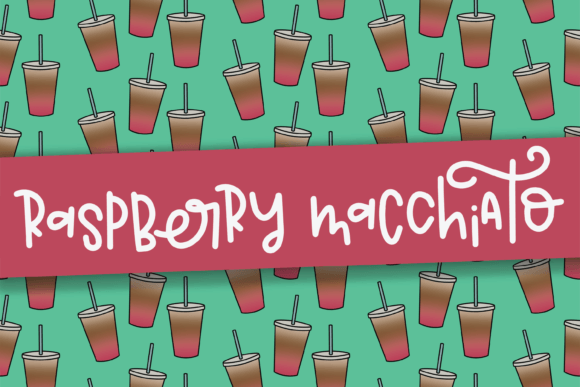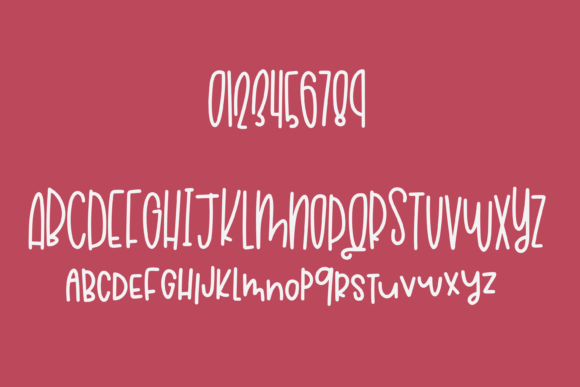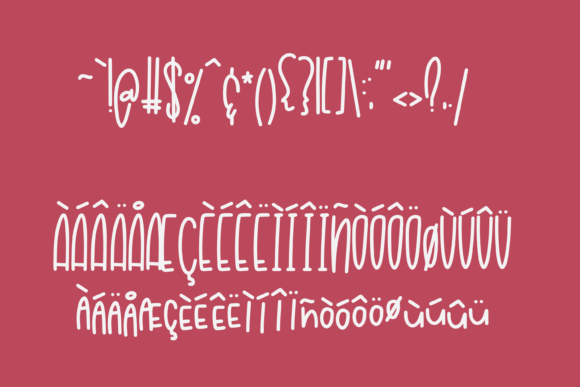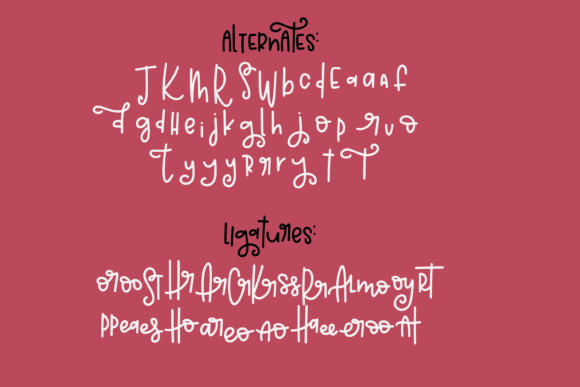
Raspberry Macchiato Font
About Raspberry Macchiato Font
Introducing the Raspberry Macchiato Font – a truly unique typeface filled with delightful ligatures that add that extra touch of personality. Perfect for those seeking to infuse a bit of pizzazz into their projects, whether they be for business or personal hobbies. With its fun and playful tone, the Raspberry Macchiato Font is designed to bring a smile to everyone who encounters it.
One of the standout features of the Raspberry Macchiato Font is its uniqueness. The inclusion of ligatures not only adds a creative flair but also enhances the overall visual appeal of the font. This uniqueness makes it a perfect choice for those who want to stand out and make a memorable impression with their text.
For business projects, the Raspberry Macchiato Font adds a touch of playfulness without sacrificing professionalism. Whether used in branding, marketing materials, or presentations, the font brings a unique character that sets your content apart, making it more engaging and memorable.
Hobbies and personal projects also benefit from the Raspberry Macchiato Font’s fun and playful tone. Whether you’re crafting DIY items, creating personalized stationery, or engaging in any creative endeavor, this font injects a sense of joy and creativity into your text.
The ligatures in the Raspberry Macchiato Font contribute to a seamless and flowing appearance, enhancing the overall aesthetic. This makes it an excellent choice for projects where a fluid and connected look is desired, adding a level of sophistication to the playful tone.
In summary, the Raspberry Macchiato Font is not just a font; it’s a unique and playful design tool that brings a delightful touch to your projects. Whether used for business or personal endeavors, its fun and creative tone, coupled with ligatures, ensures that your text exudes personality and makes a positive impact on your audience.